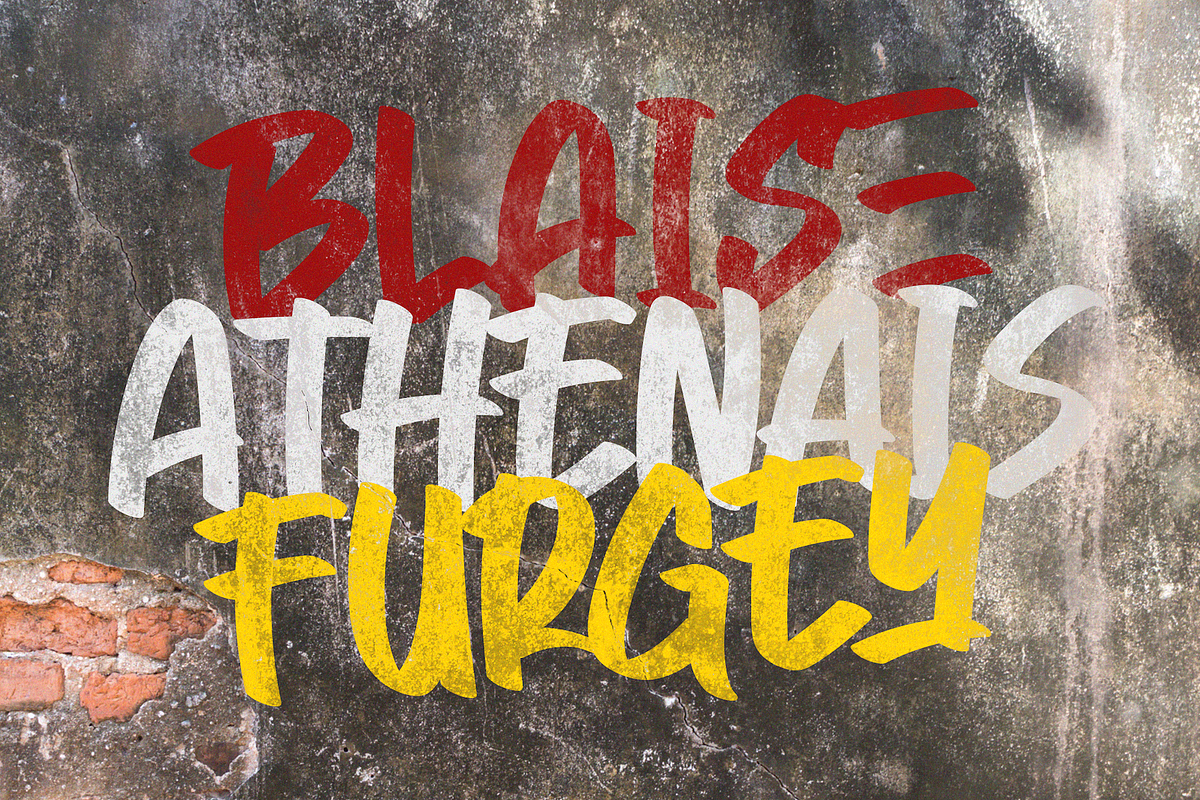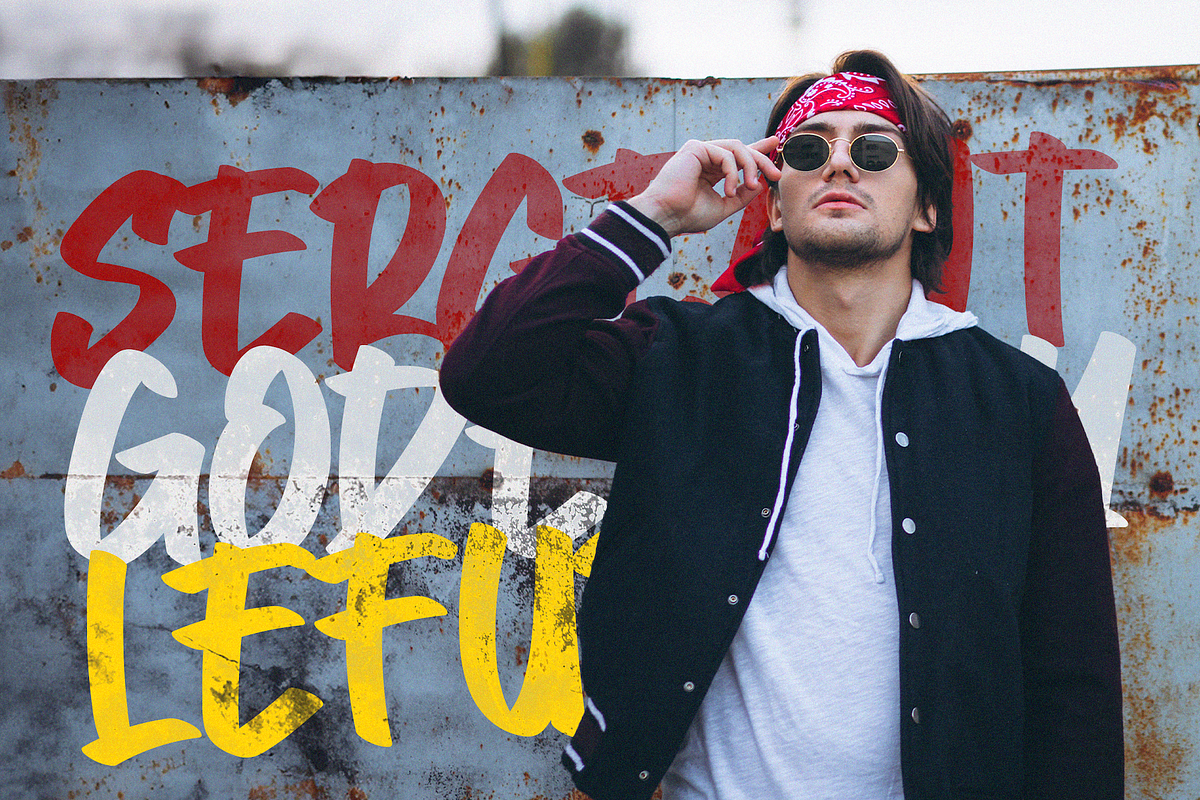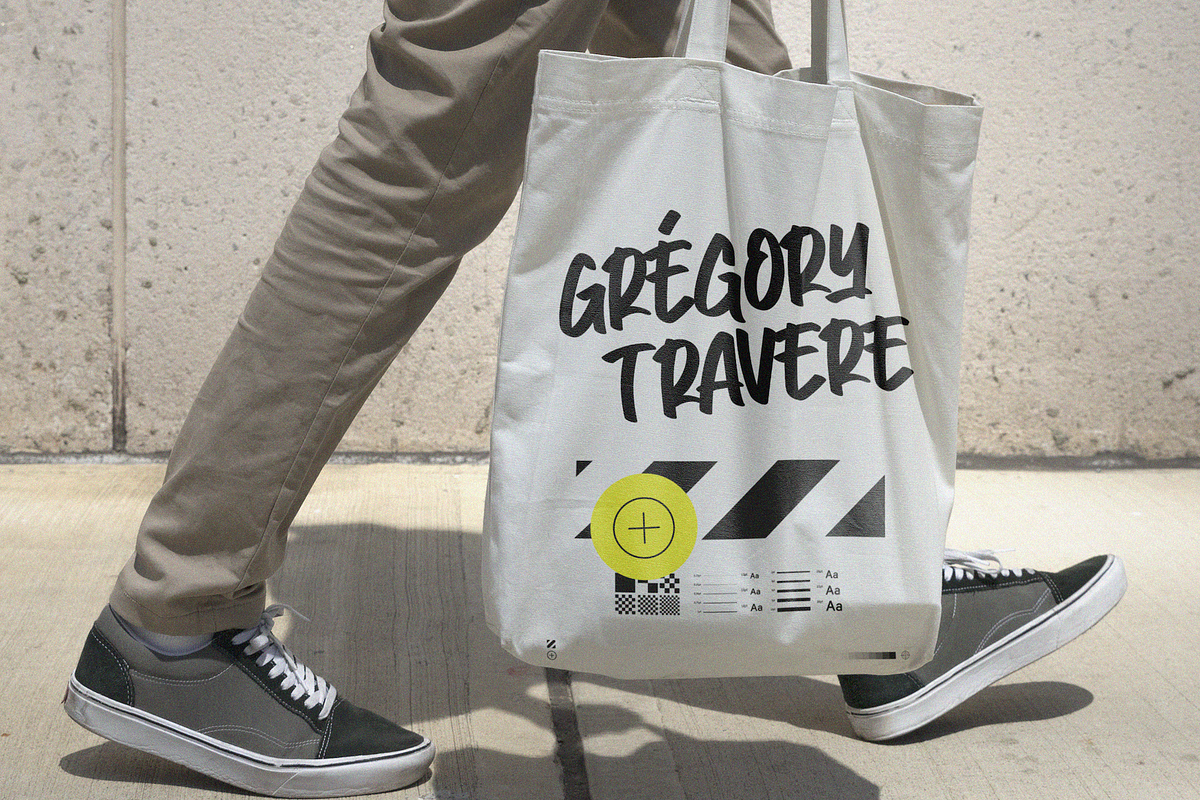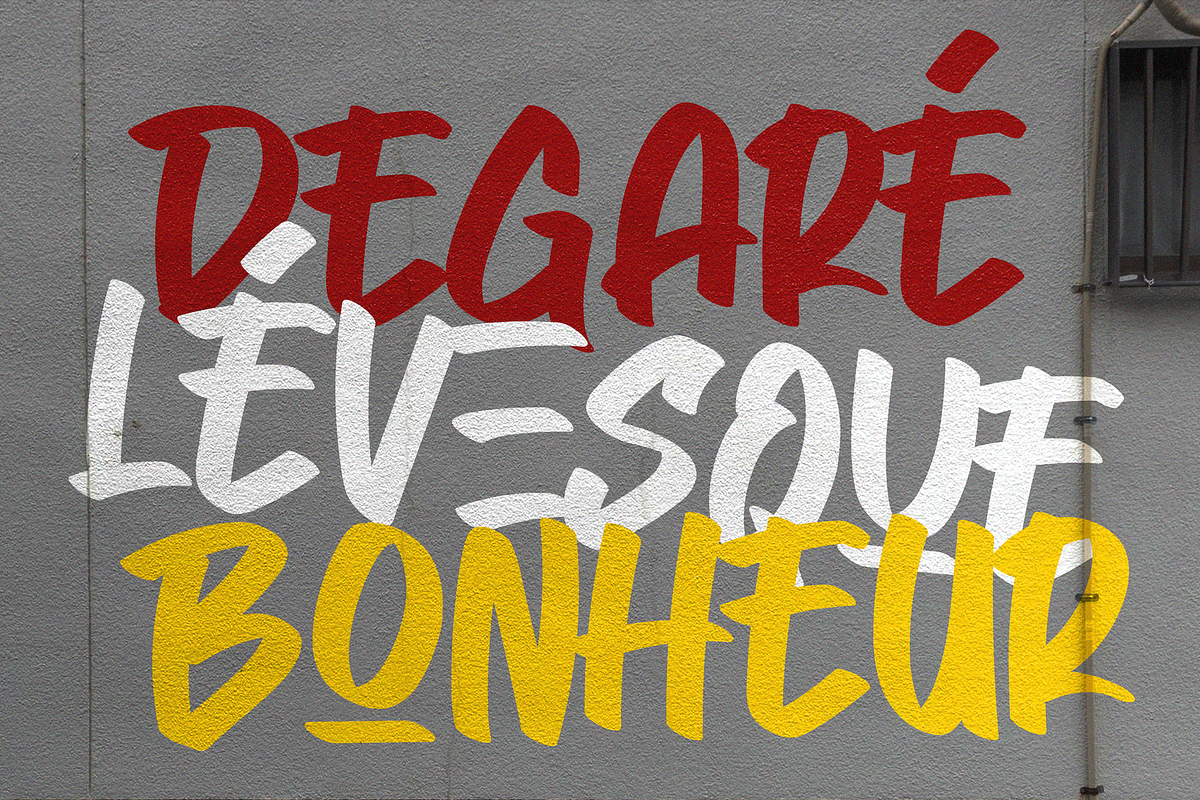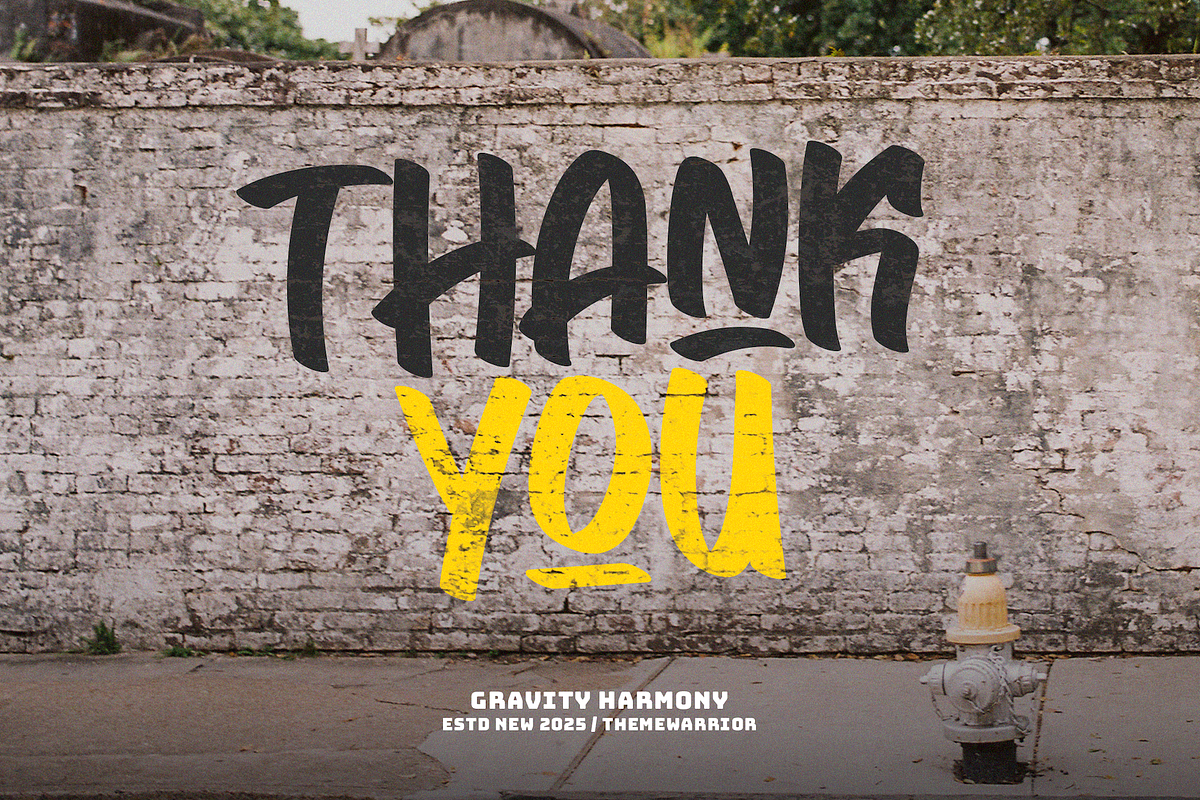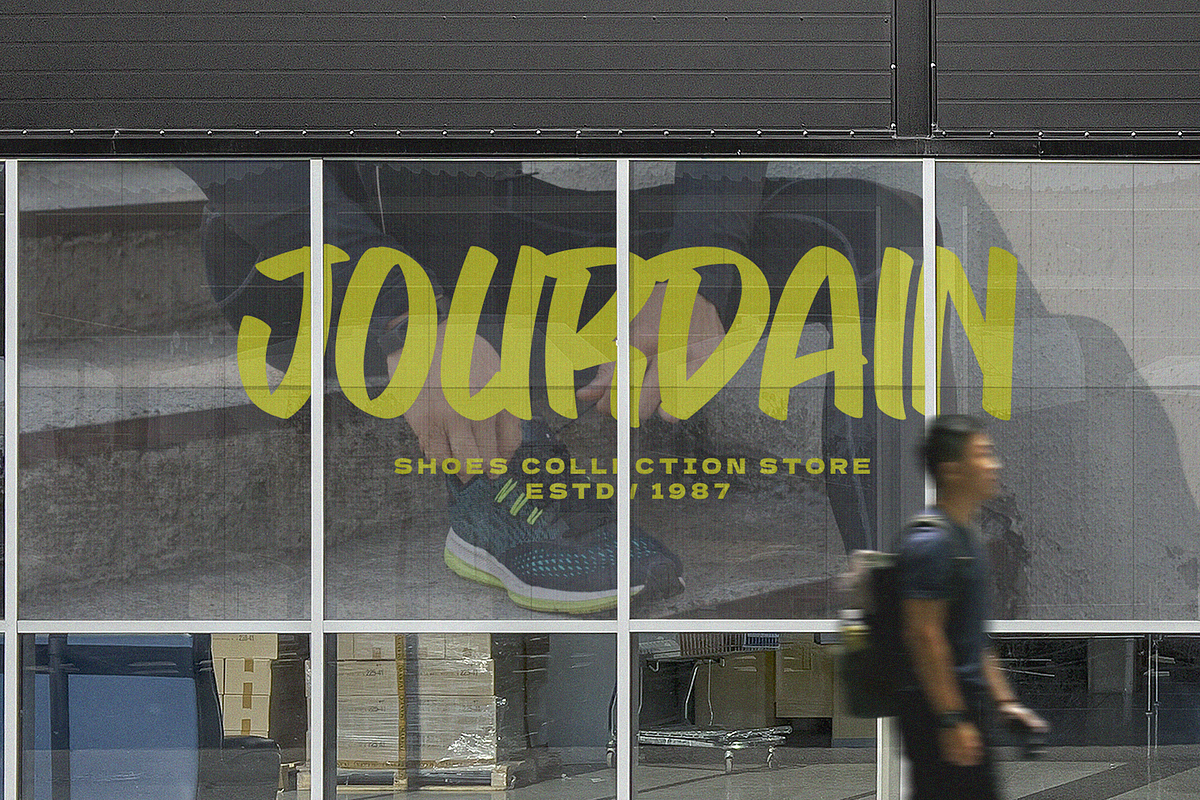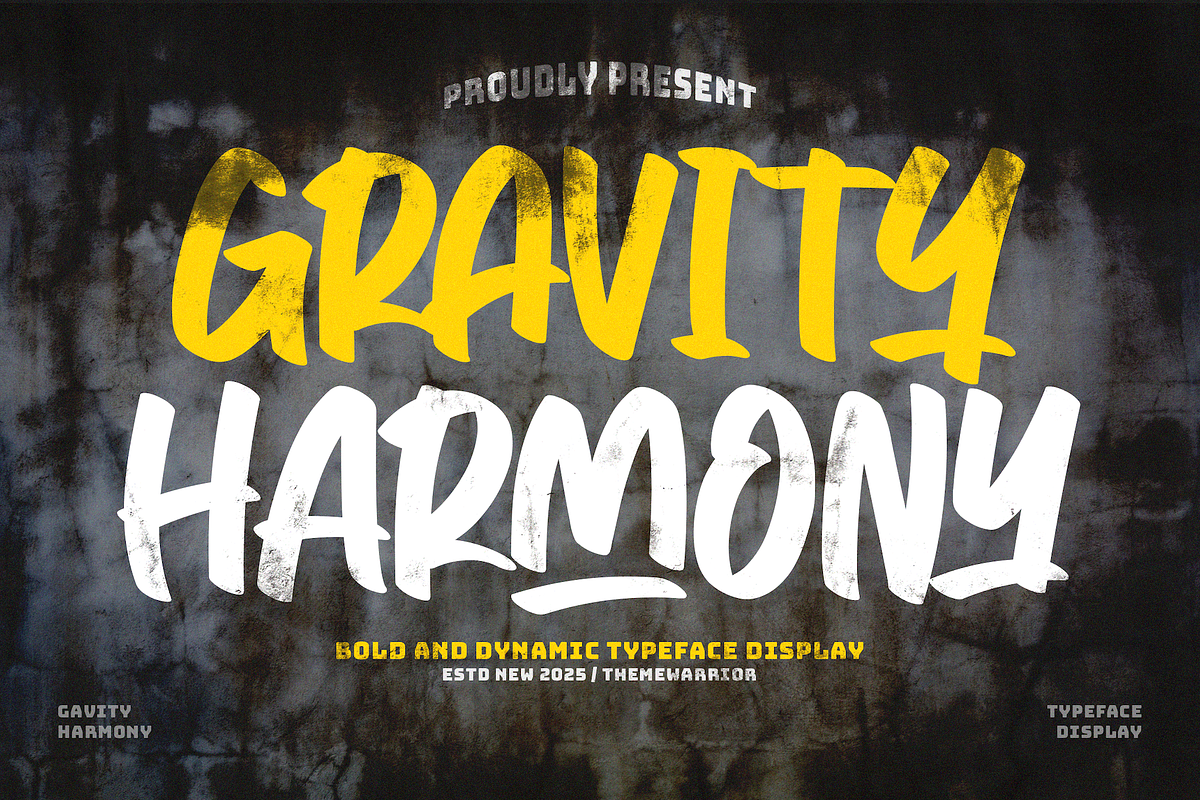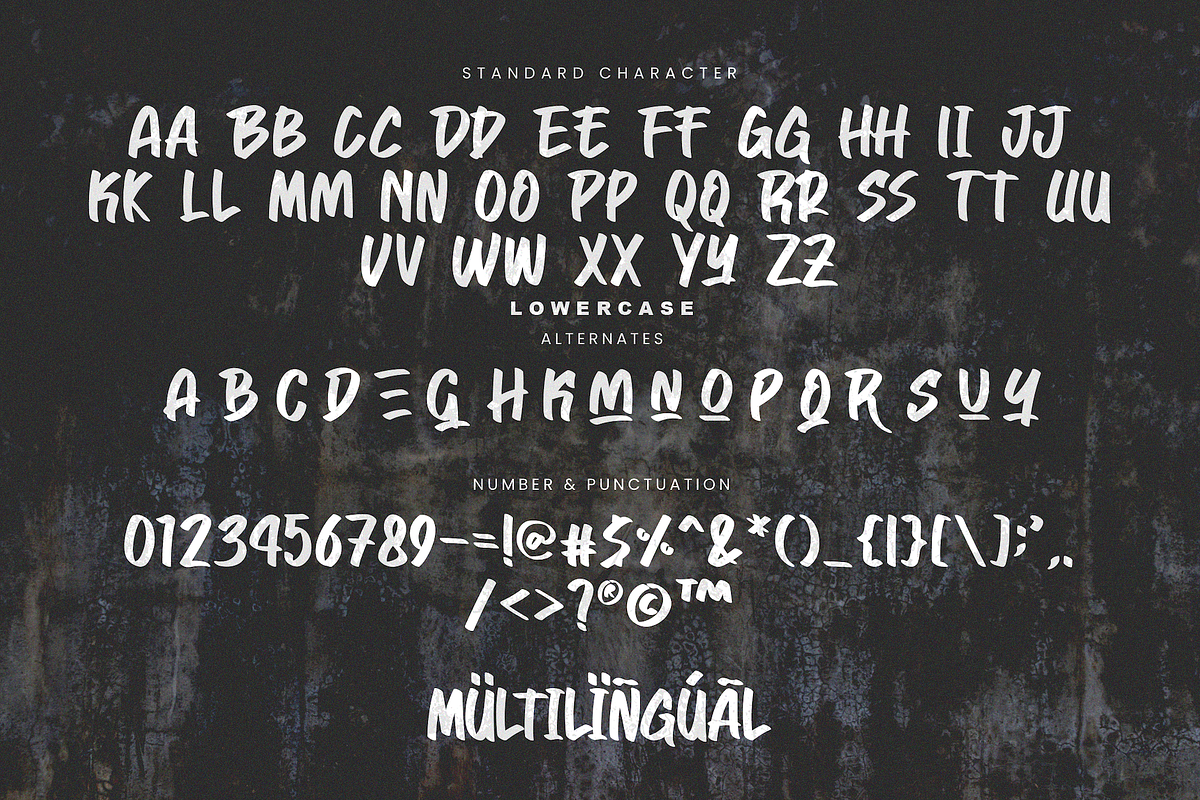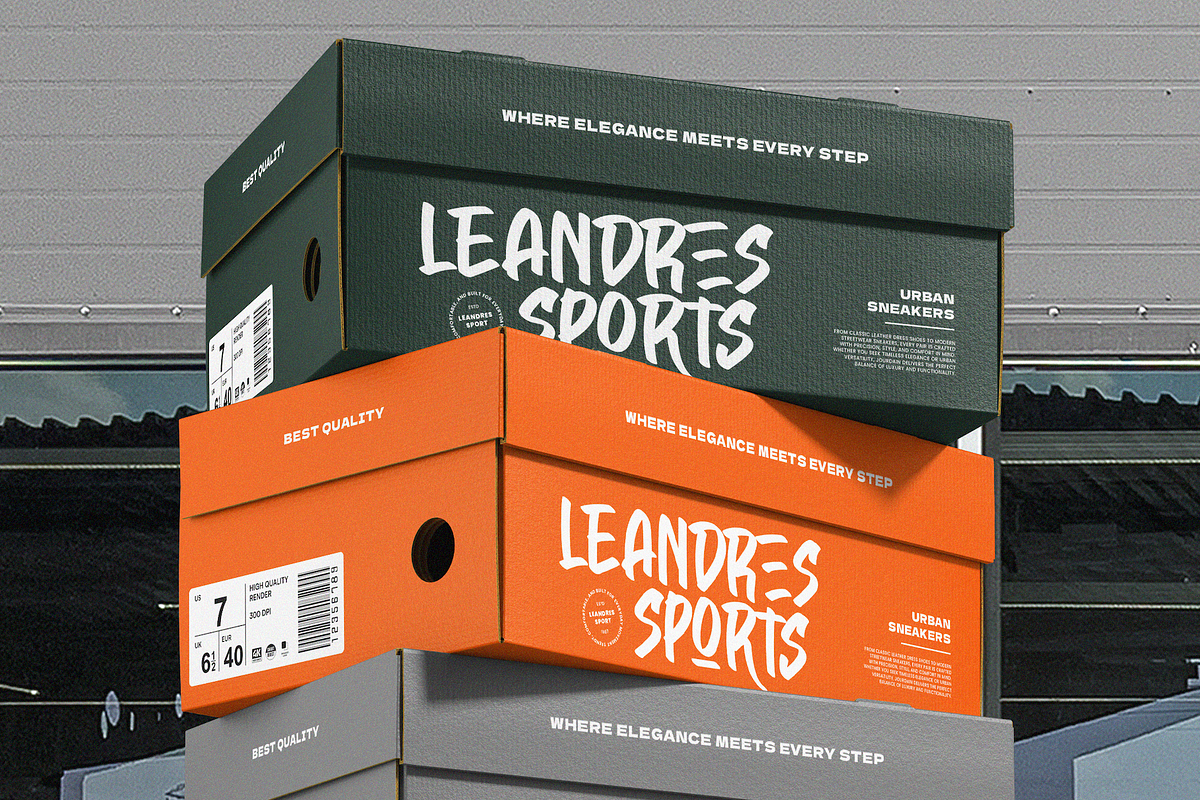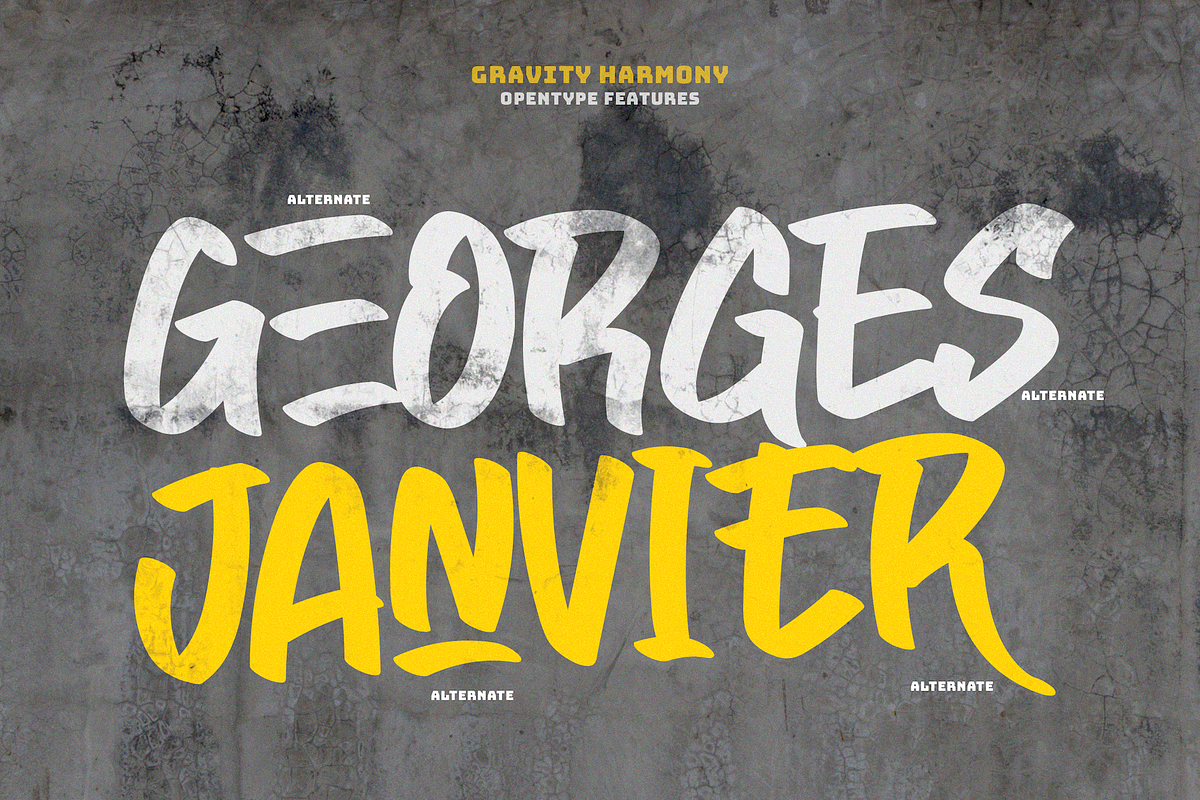
Gravity Harmony
Gravity Harmony is a bold handwritten font that stands out with its clean, natural style. The font style feels creative and expressive. Perfect for branding, headlines, poster or any creative project, Gravity Harmony also comes with alternates to give your designs extra variety and flair.